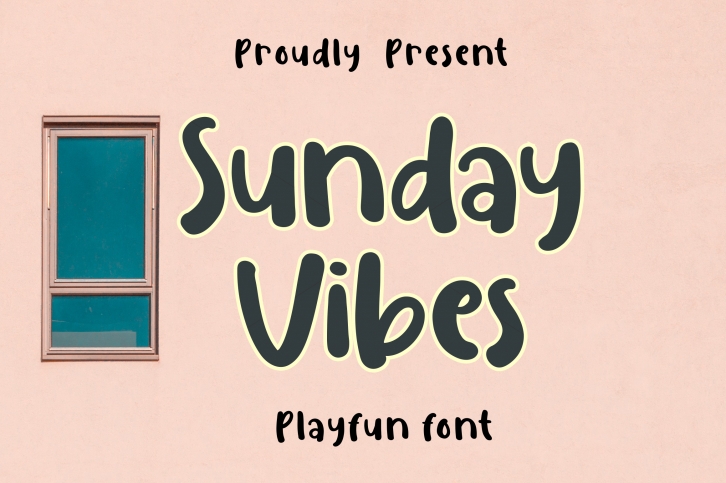
Sunday Vibes is a playful, simple and quirky font perfect for any design you wish to create. Add it to your most creative ideas, and notice how it makes them come alive!